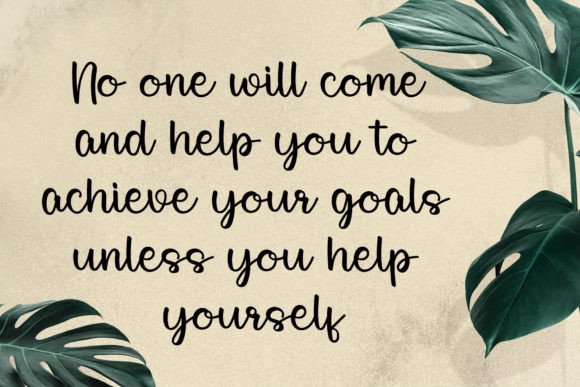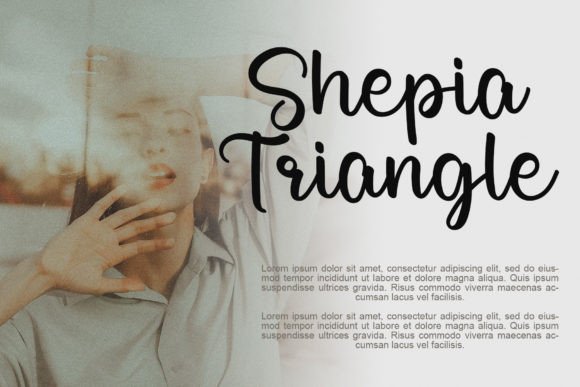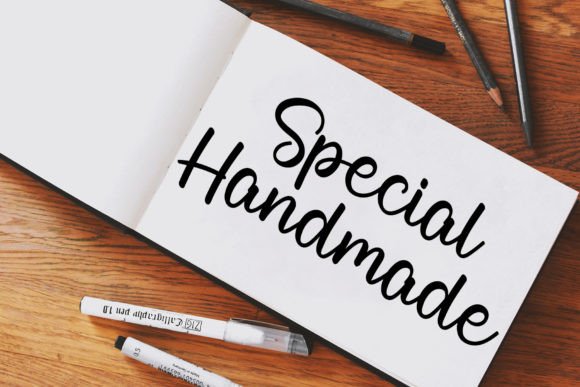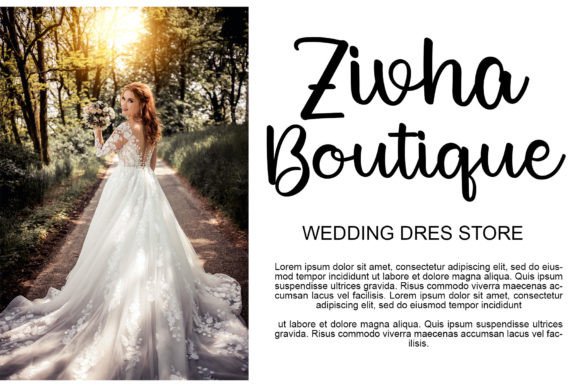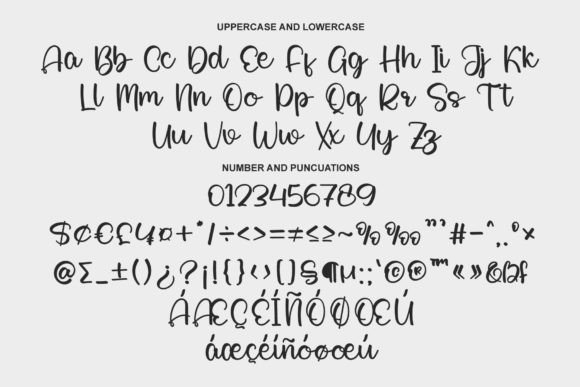
About Trending
Trending is a beautiful handwritten font. Its distinct and well rounded letters make this font a masterpiece. Fall in love with its incredibly versatile style and use it to create spectacular designs!